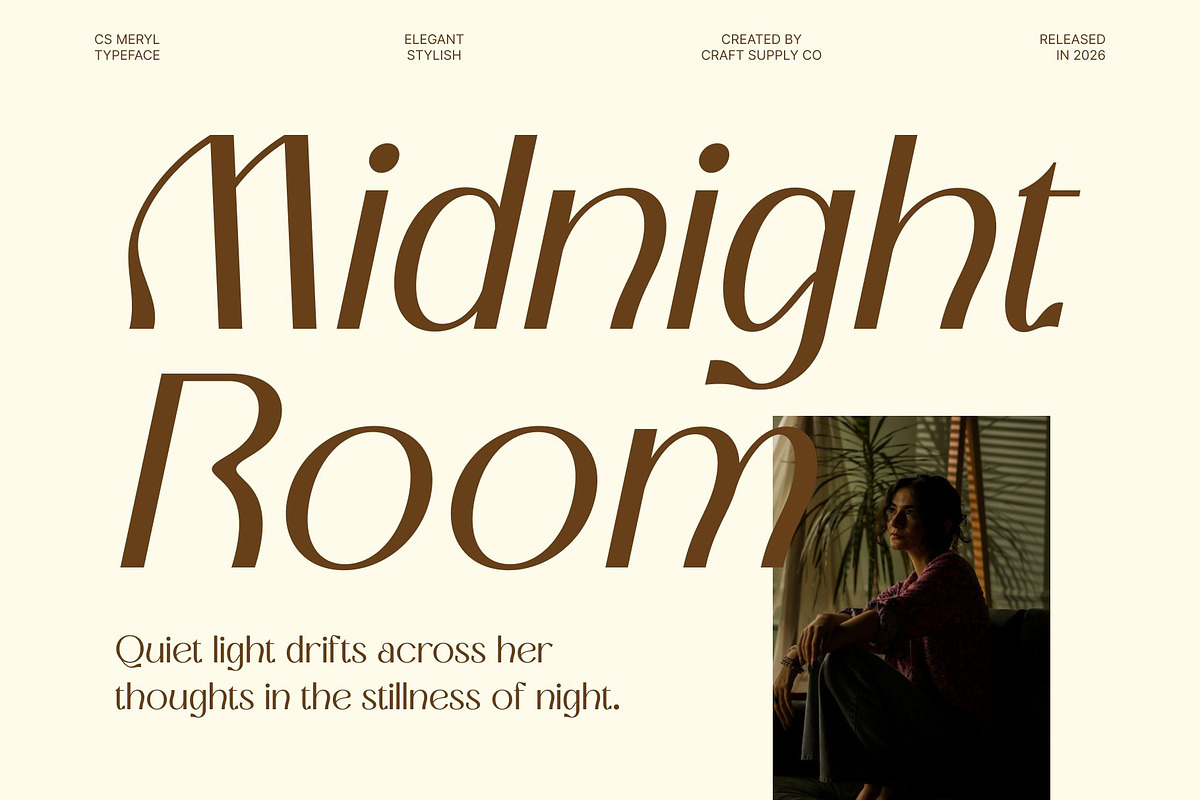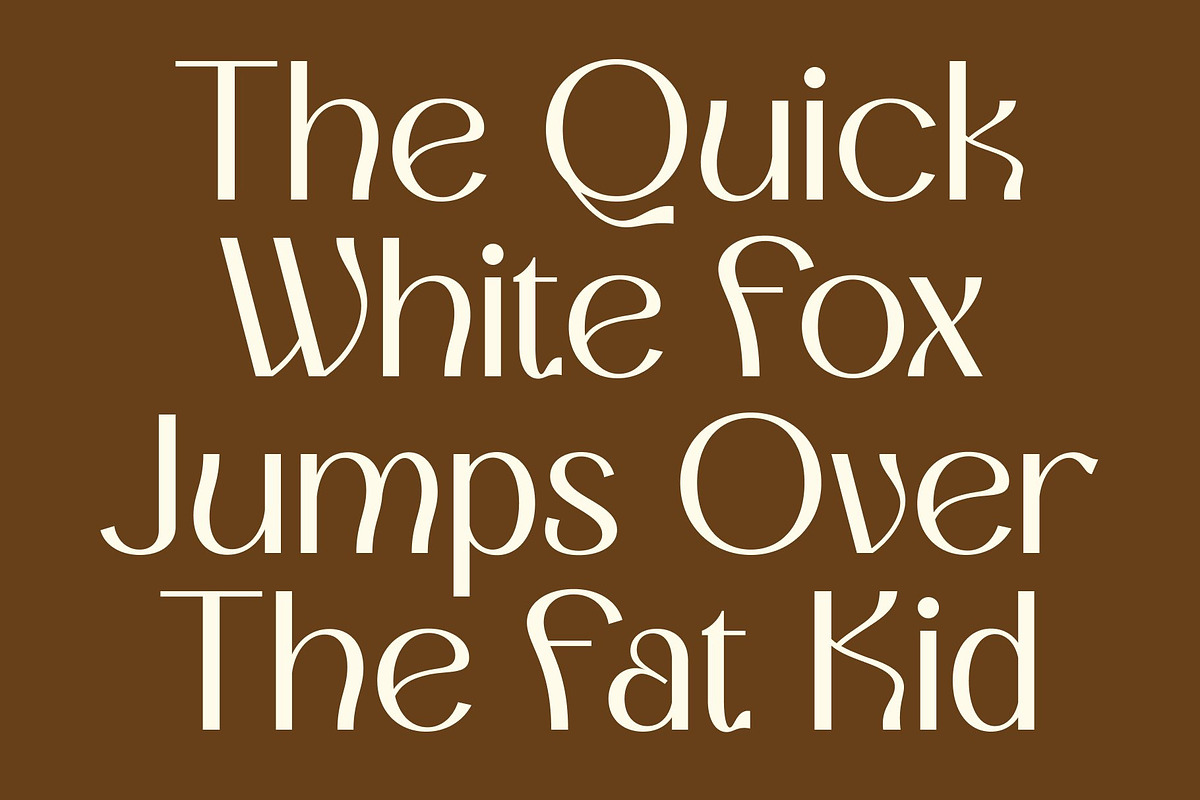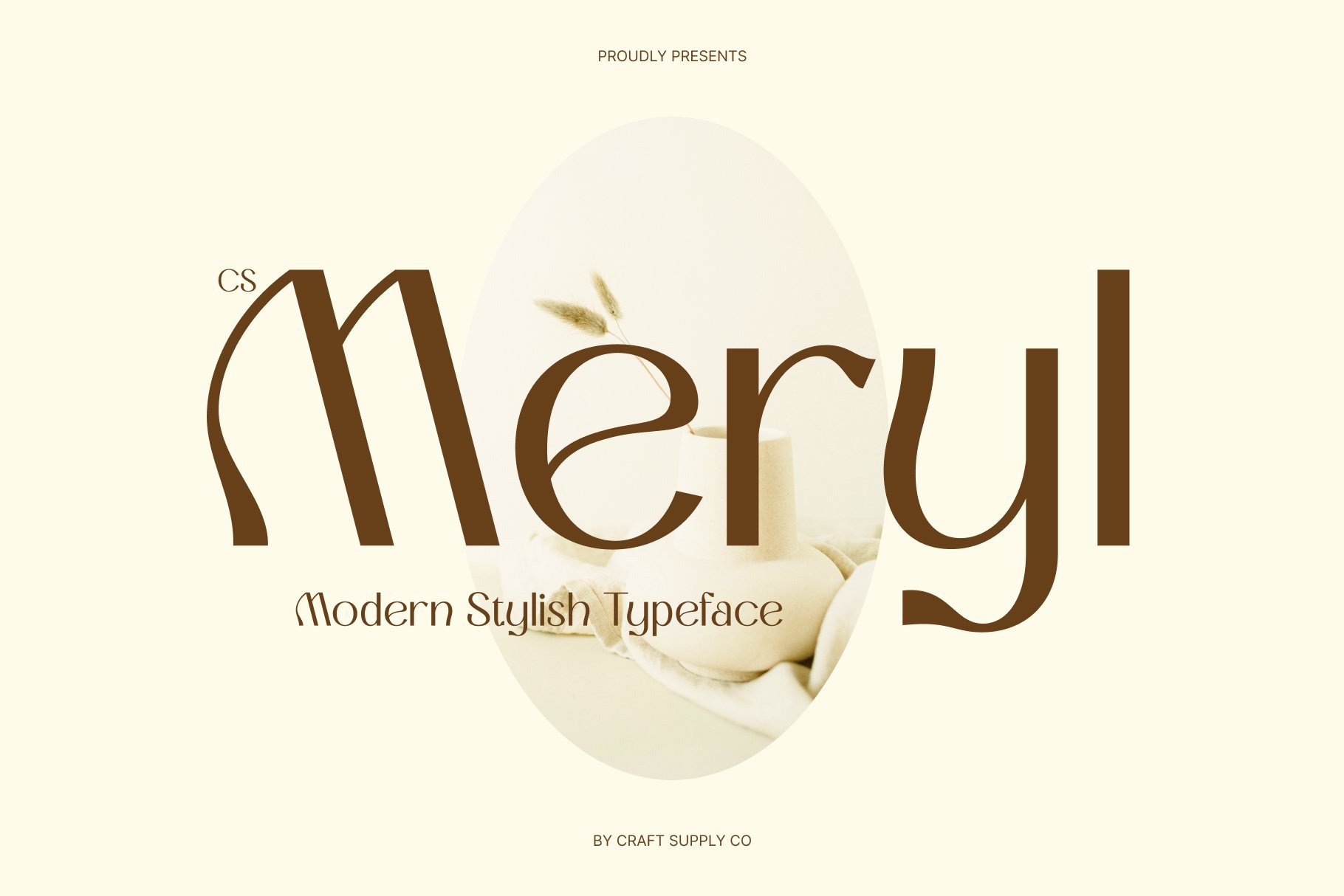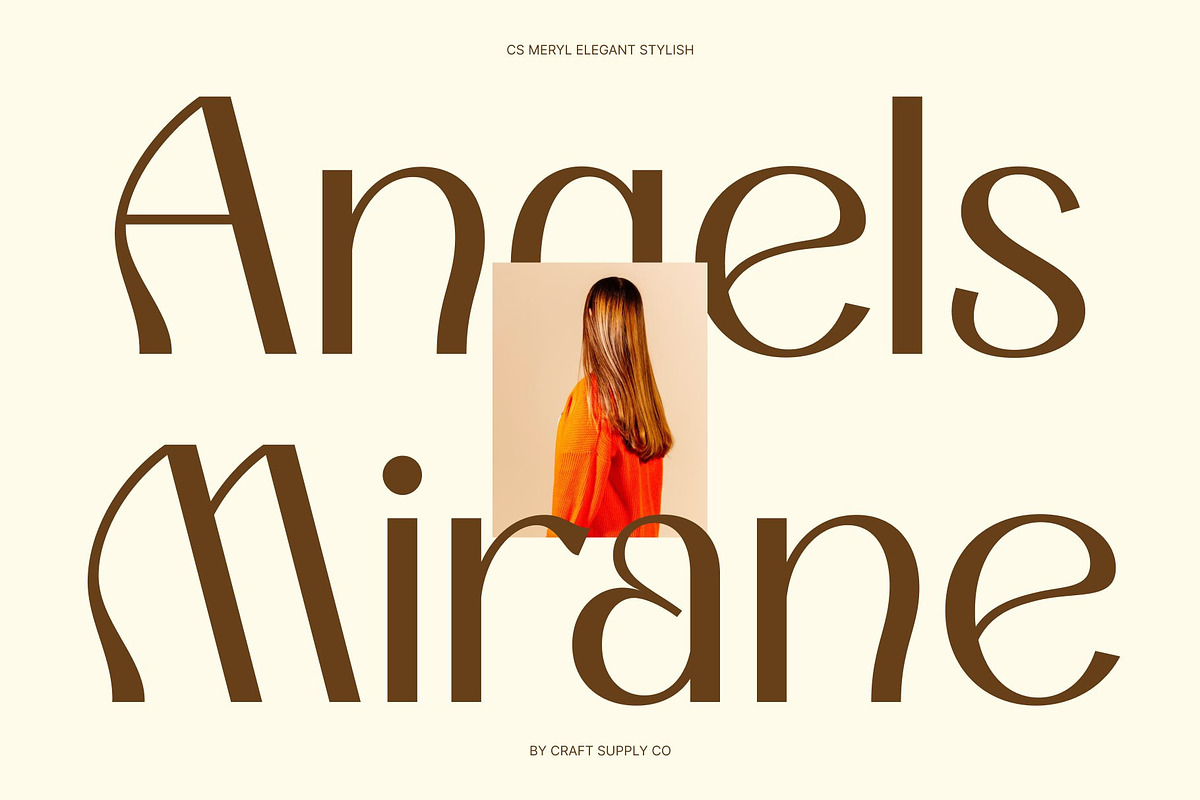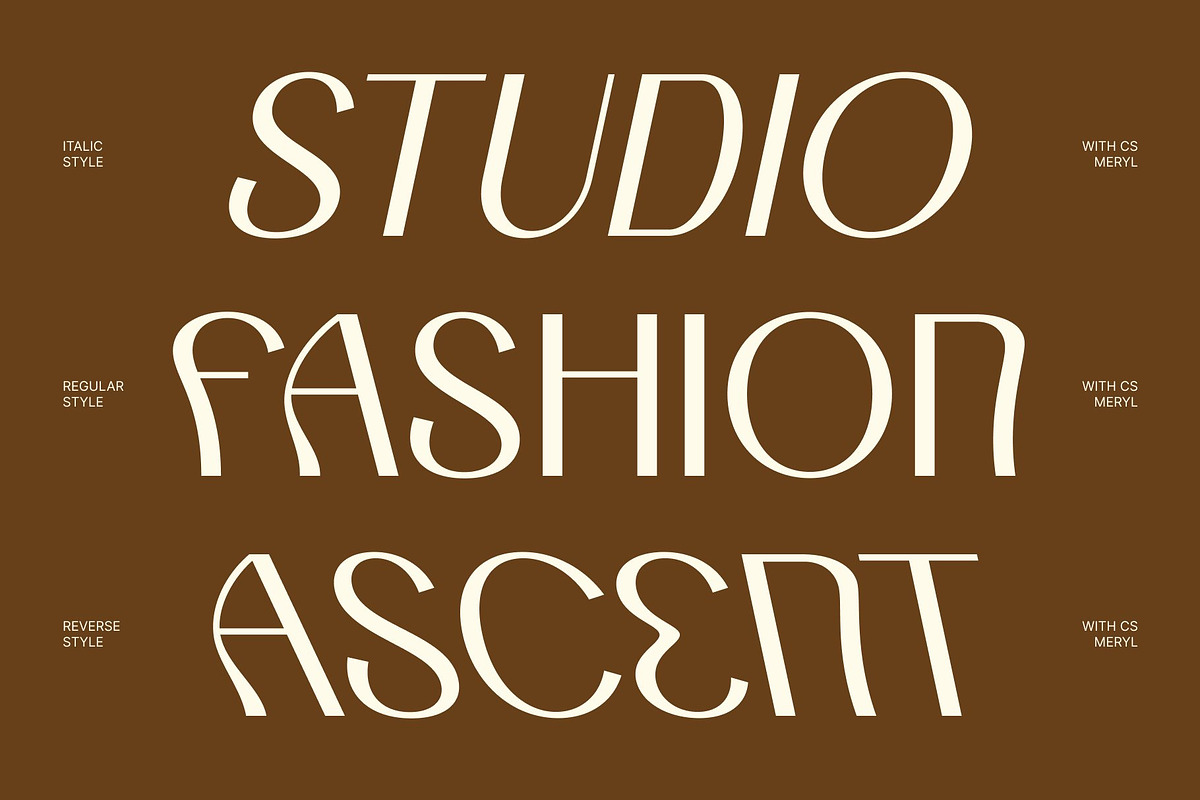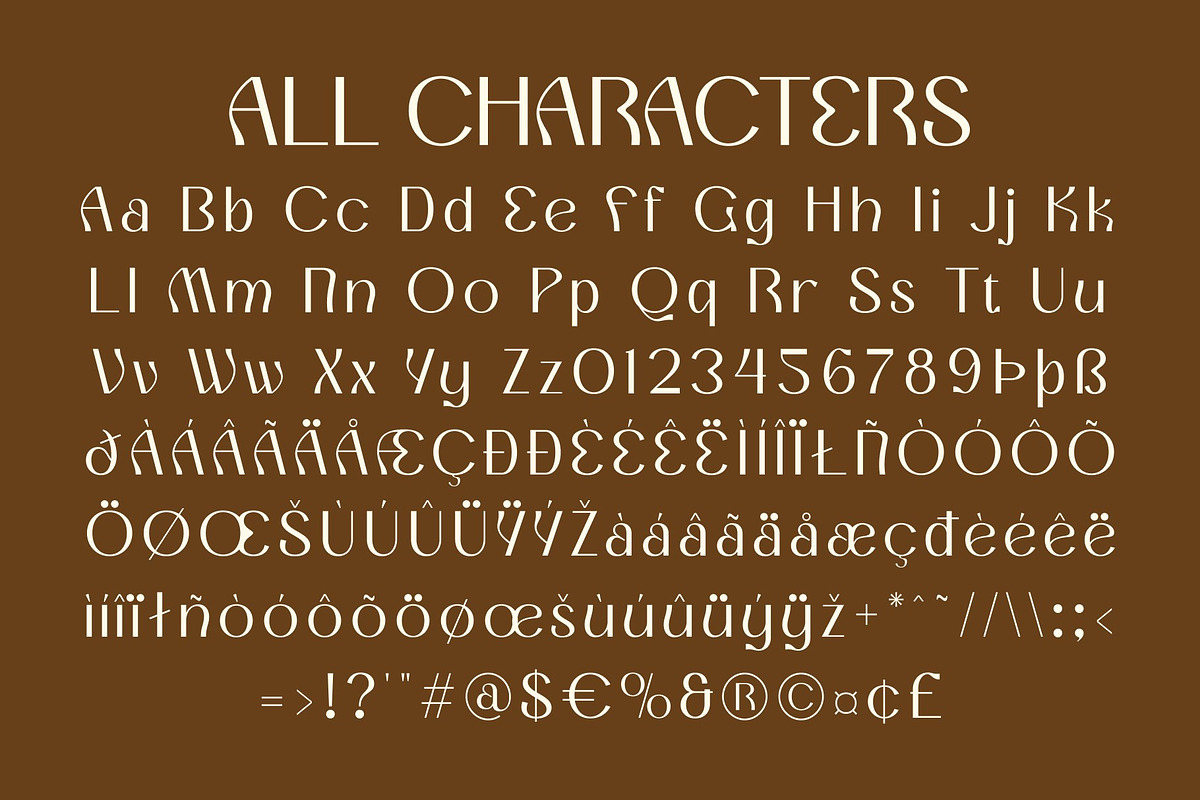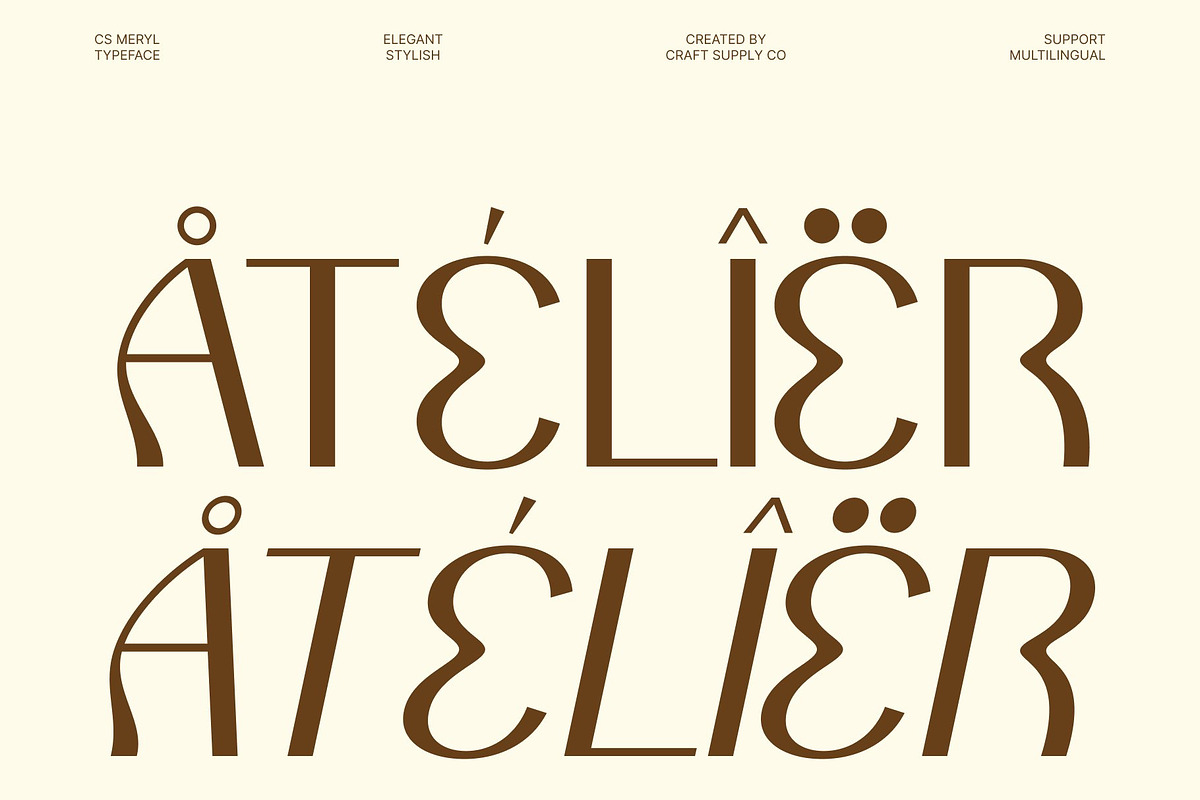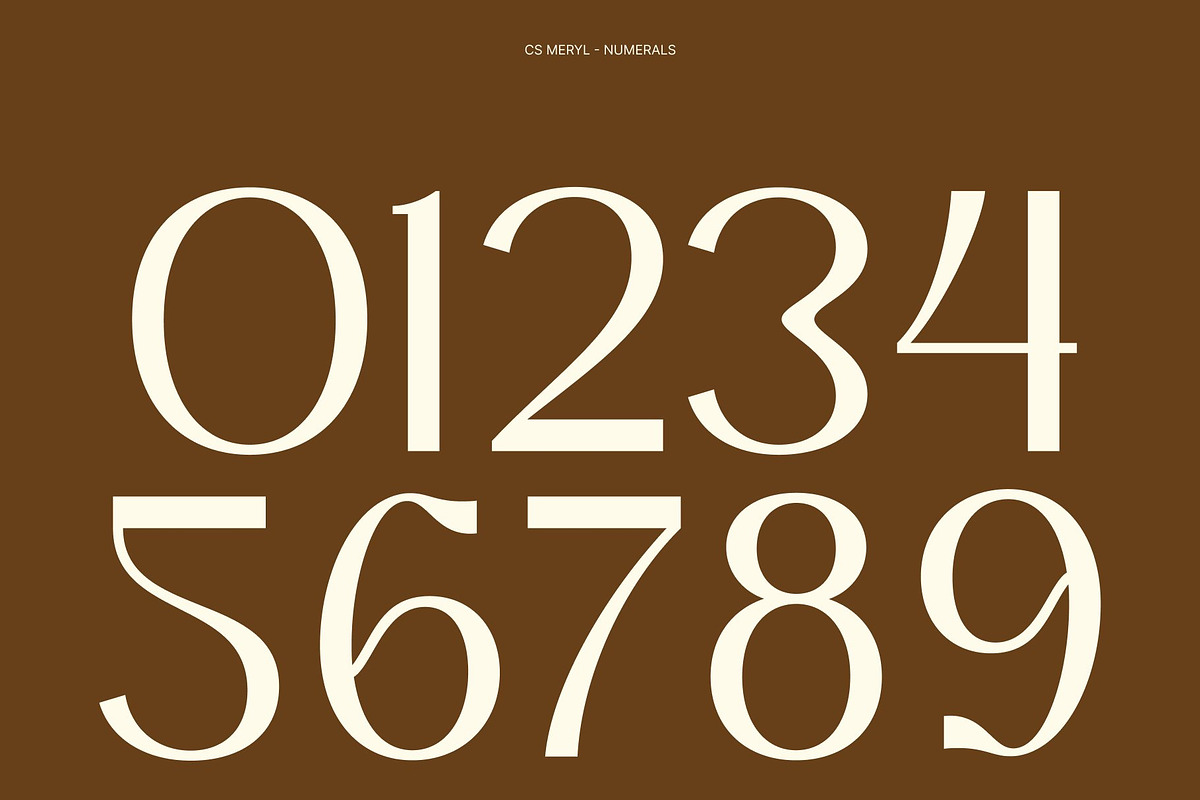
CS Meryl – Stylish Font
CS Meryl – Modern Sans Serif with Sophisticated Elegance
Modern Sans Serif with Refined Character This is a sophisticated and stylish modern sans serif typeface designed to express elegance and contemporary refinement. With its balanced proportions and clean structure, this font delivers a polished aesthetic that feels both professional and fashionable. It is crafted for designers who want typography that communicates confidence, clarity, and modern luxury.
Clean Geometry with Fashion-Forward Appeal Every letterform is carefully shaped with smooth curves and precise lines, creating a sleek and harmonious appearance. The refined geometry gives this font a timeless quality while maintaining a fresh, modern personality. This combination makes the font feel equally at home in high-end branding and creative editorial layouts.
Elegant Personality with Versatile Style This font blends sophistication with approachability, making it highly adaptable across a wide range of design styles. Its stylish presence elevates text without overwhelming the composition, allowing it to function beautifully in both bold headlines and refined supporting typography. The result is a typeface that feels effortlessly elegant.
Perfect for Branding, Fashion, and Creative Layouts From luxury branding and fashion campaigns to editorial spreads and digital design, this font provides a versatile typographic solution. Its clean structure and elegant character ensure your typography appears modern, professional, and visually compelling across every project.